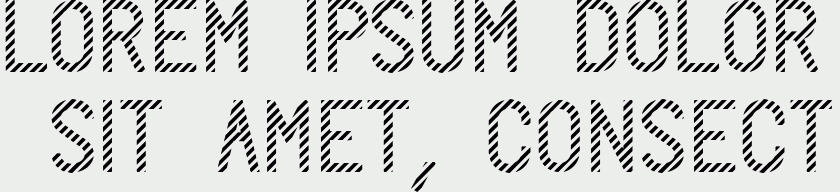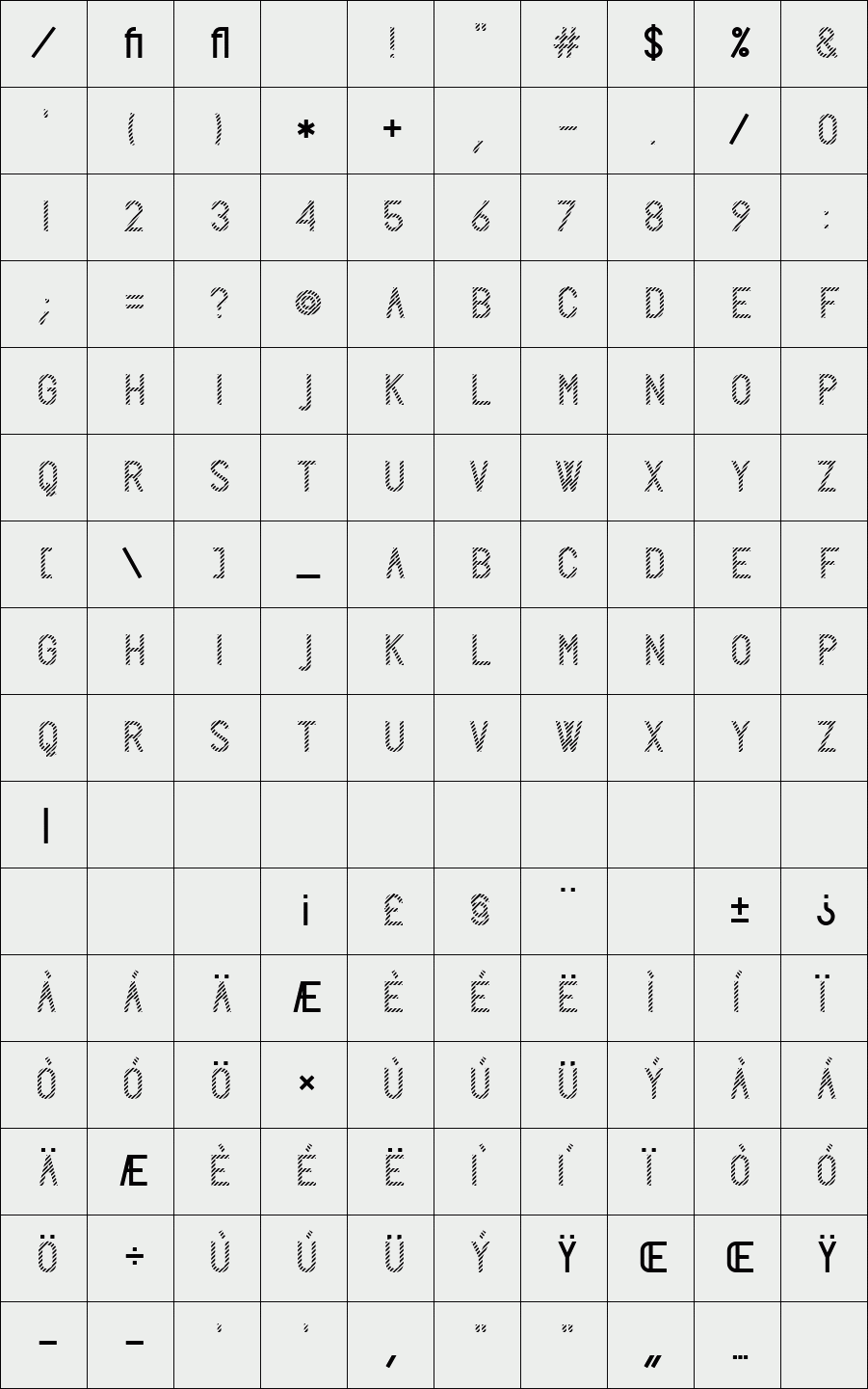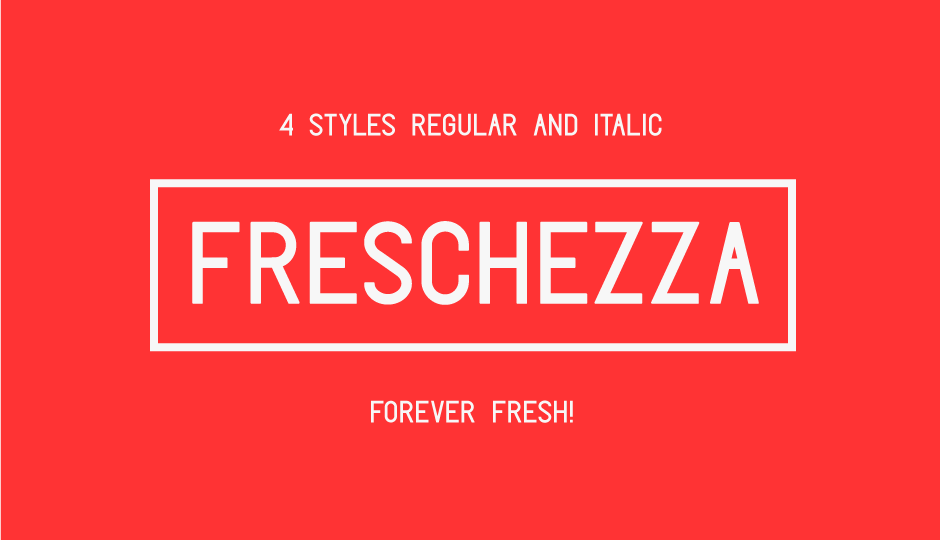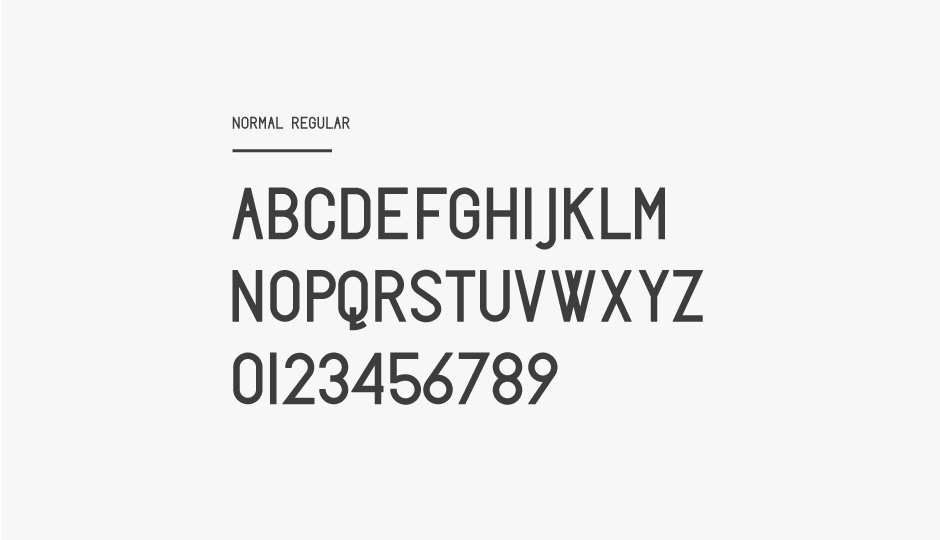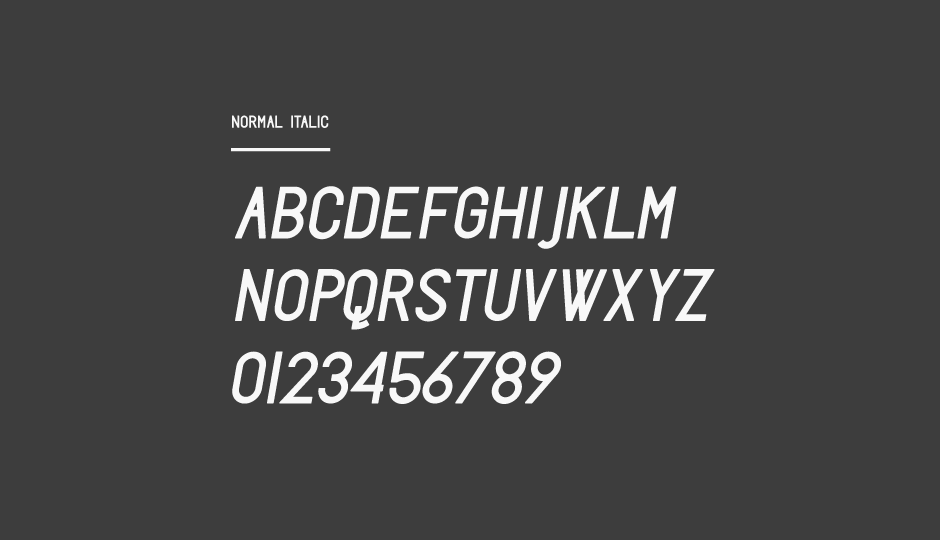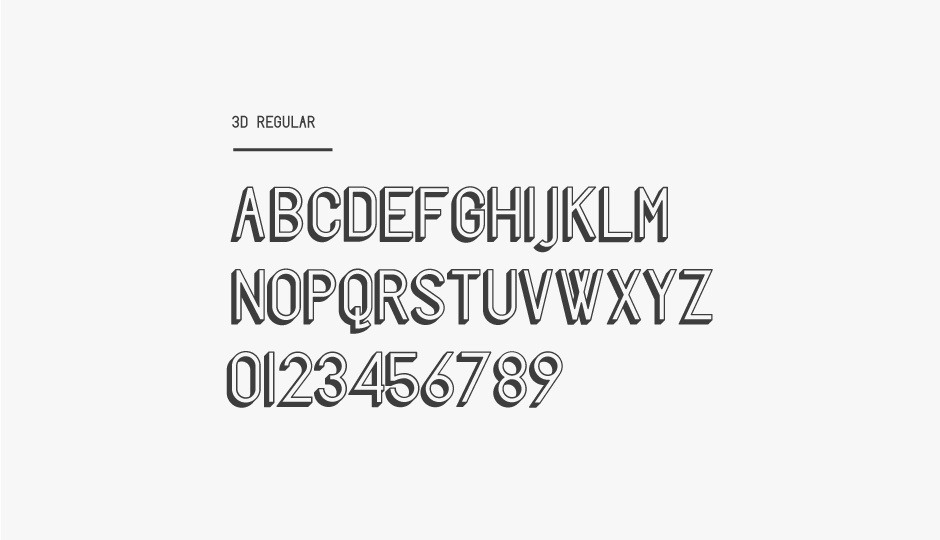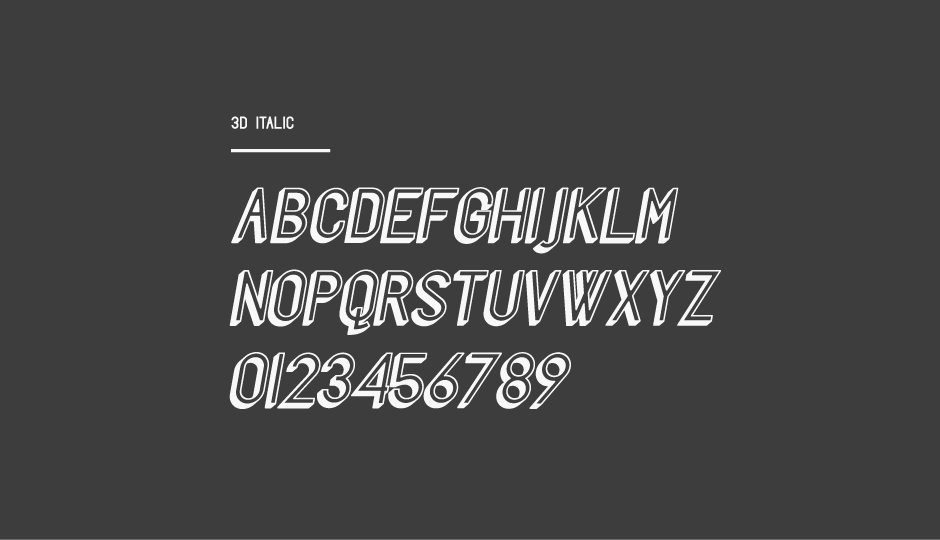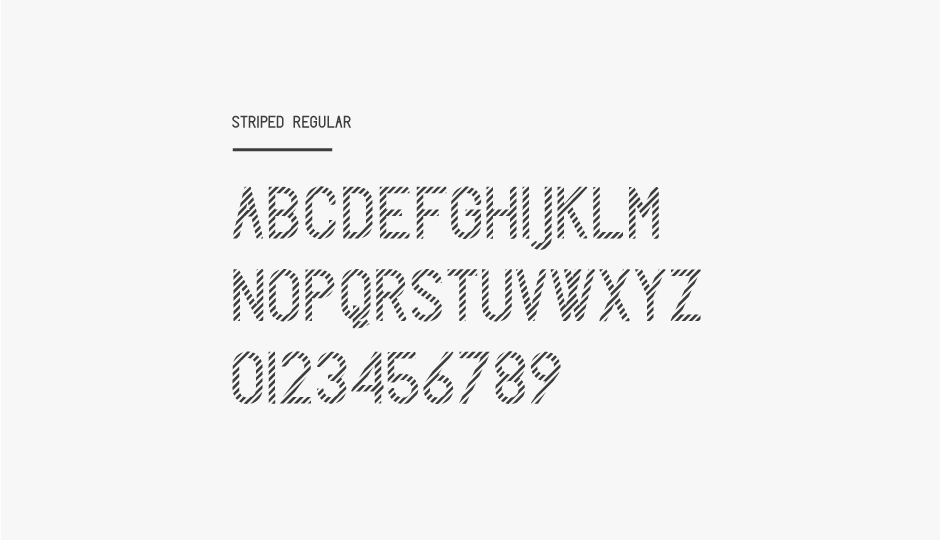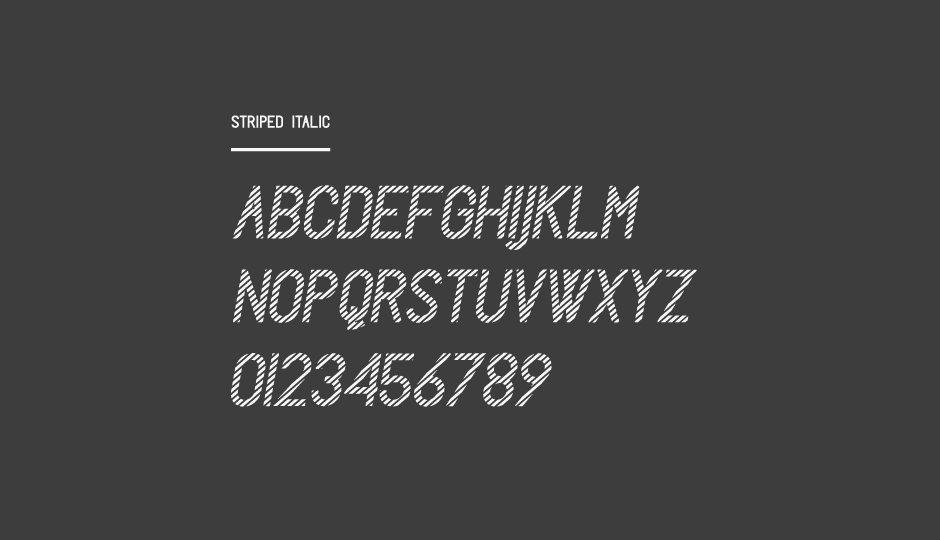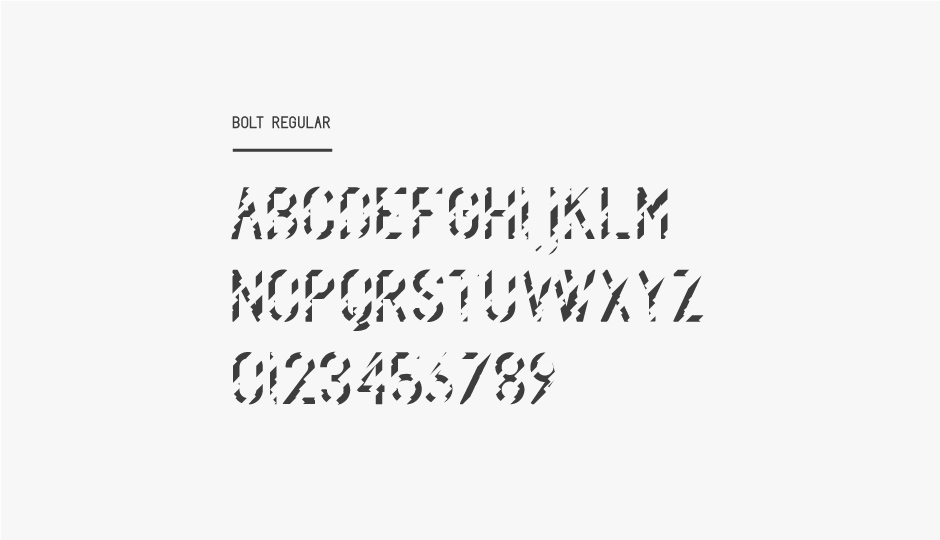
Freschezza Typeface
/ Freschezza Striped
Freschezza Typeface is a dynamic font with Regular and Italic styles and 4 types of shape. Is perfect
to create poster, postcard, canvas, 3D letters and is suitable for titles and short paragraphs.